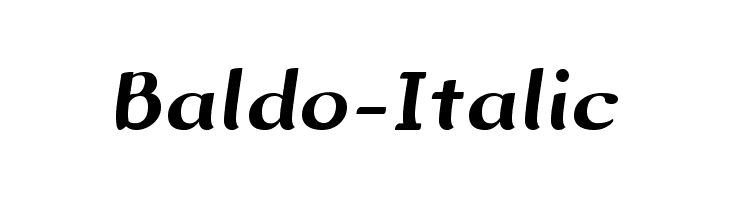
( Juan Pablo De Gregorio - www.letritas.info )
Elegant serif font with an italic slant and classic styling.
( Fonts by Diego Andaluz )
Bold, playful decorative font with bubble-like cutouts.
A bold, playful font with a hand-drawn, irregular style.
A playful, bold font with rounded edges and a whimsical style.
( Fonts by twicolabs.com - Twicolabs Typefoundry )
A bold, impactful font with strong, thick strokes and a modern geometric influence.
A bold, decorative font with circular cutouts, reminiscent of vintage Western styles.
A bold, playful font with a shadow effect, ideal for dynamic and fun designs.
A bold, playful font with a quirky, hand-drawn aesthetic.
A bold, decorative font with a playful, three-dimensional style.
A playful, hand-drawn style font with bold, sketch-like outlines.
A bold, playful font with a 3D block-like appearance.
( Nerdle Pants )
A whimsical, hand-drawn font with a playful and cartoonish style.
( Fonts by twicolabs.com - Twicolabs Typefoundry )
A bold, modern font with a vintage touch, perfect for impactful headlines.
A bold, dynamic script font with fluid, connected letterforms.
( Fonts by www.freakyfonts.de )
A bold, grid-patterned font with a playful, digital look.
( Fonts by www.freakyfonts.de )
A bold, distressed font with a pixelated, grunge style.
( Gabriela Rodriguez - www.behance.net/gabriela_roh )
A modern, high-contrast font with sleek, elongated characters and artistic flair.
A bold, blocky font with geometric shapes and tight spacing, perfect for impactful headlines.
( Fonts by Chank Co. - www.chank.com )
A playful, dot-based font with a whimsical and textured appearance.
A modern, geometric font with clean lines and a condensed appearance.
( AdultHuman - Alex - twitter.com/AdultHumanType )
A playful, hand-drawn font with whimsical, irregular strokes.
A bold, hand-drawn font with expressive and uneven strokes.
A bold, chunky, and playful sans-serif font with a modern retro vibe.
( Fonts by The League of Moveable Type - theleagueofmoveabletype.com )
A bold slab serif font with strong, block-like serifs and consistent weight.
A bold, textured slab serif font with a vintage, distressed look.
( Fonts by The League of Moveable Type - theleagueofmoveabletype.com )
A bold, slab serif font with strong, thick strokes for impactful designs.
( Fonts by The League of Moveable Type )
A bold and robust slab serif font with strong vertical strokes and block-like serifs.
A bold, slab serif typeface with strong, geometric shapes.
A bold, slab serif font with a strong, vintage aesthetic.